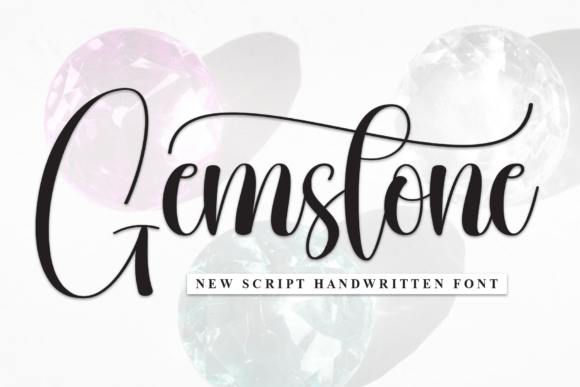
The Magic of Handwritten Fonts: Discovering Gemstone
As a designer, have you ever found yourself sitting at your desk, staring blankly at a blank page, waiting for inspiration to strike? For many of us, it’s that moment of creative block that sparks the search for the perfect font to bring our vision to life. And then, like a ray of sunshine, you stumble upon a gem – literally, a gemstone of a font that makes everything fall into place.
Enter the enchanting Gemstone Font, a lovely and timeless handwritten font that’s perfect for creating eye-catching logos, branding, and quotes. Every letter has a unique and beautiful touch, imbuing your design with a sense of personality and charm that’s hard to resist. Whether you’re a seasoned pro or just starting out, the Gemstone Font is an invaluable addition to your design toolkit, offering endless possibilities for creativity and self-expression.
Gemstone Font Key Features
- Unique Characteristics: Gemstone Font features a unique blend of modern and vintage elements, with intricate details and ornate flourishes that give it a distinctive, high-end look.
Designer Review: Gemstone Font
Overall, I’d say the Gemstone Font is a solid choice for designers looking for a unique, eye-catching font. ✨ The font’s irregularities and organic feel make it perfect for adding a touch of whimsy to designs, and the varied letterforms create a sense of visual interest.
- Unique and eye-catching: The Gemstone Font’s unusual design makes it stand out from more traditional fonts.
- Great for creative projects: The font’s organic feel and varied letterforms make it perfect for creative projects, such as advertising, packaging, or editorial design.
- Good legibility: Despite its irregularities, the font is still easy to read, making it a great choice for body text or headlines.
However, there are a few limitations to consider: ⚠️ The font’s uniqueness can also be a drawback, as it may not be suitable for more conservative or traditional designs. Additionally, the font’s irregularities can make it difficult to pair with other fonts, and the font may not be suitable for extended text passages.
Overall, I’d give the Gemstone Font 4 out of 5 stars. While it’s not perfect, it’s a great choice for designers looking to add some visual interest to their designs, and its unique design makes it a great conversation starter.
For a more polished look, use the Gemstone Font in combination with a bold or italic font for added emphasis.
Use the Gemstone Font to create eye-catching headings and titles in your design.
Use the Gemstone Font to add a touch of elegance to your presentations and documents.
The Gemstone Font is ideal for:
- Special occasion announcements.
- Luxury brand designs.
- High-end marketing materials.
Remember to use the Gemstone Font sparingly to avoid overwhelming your design.